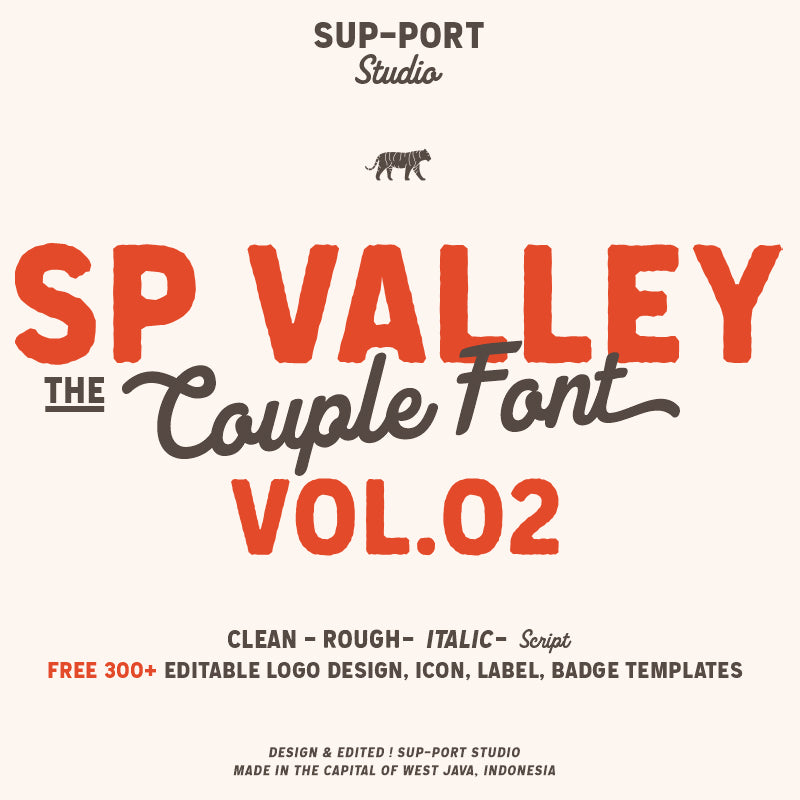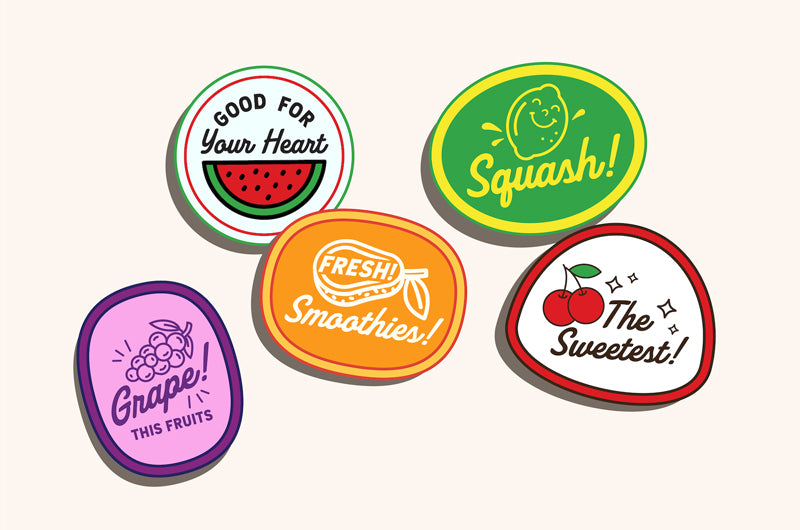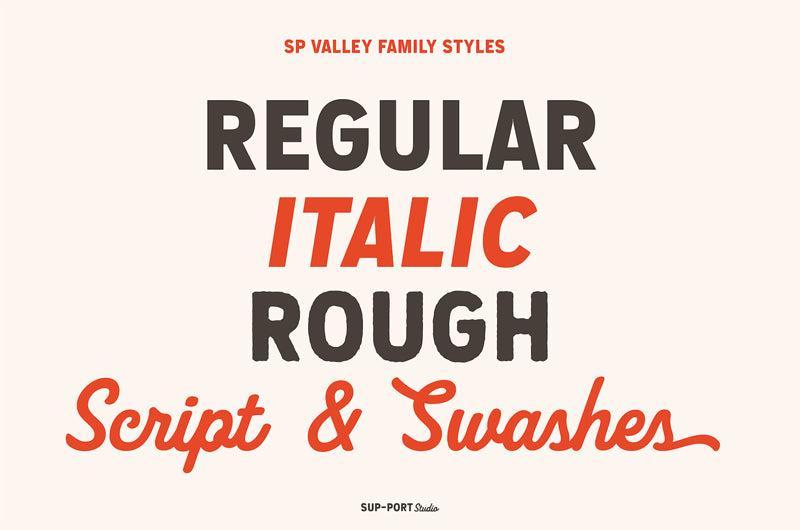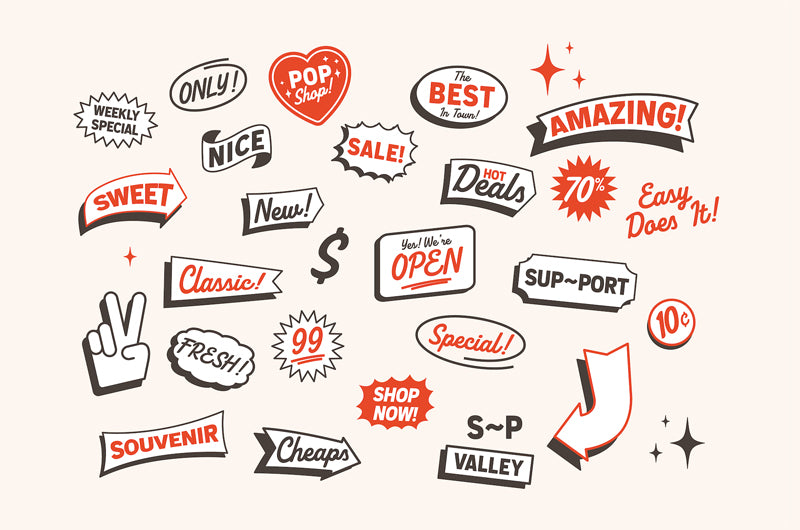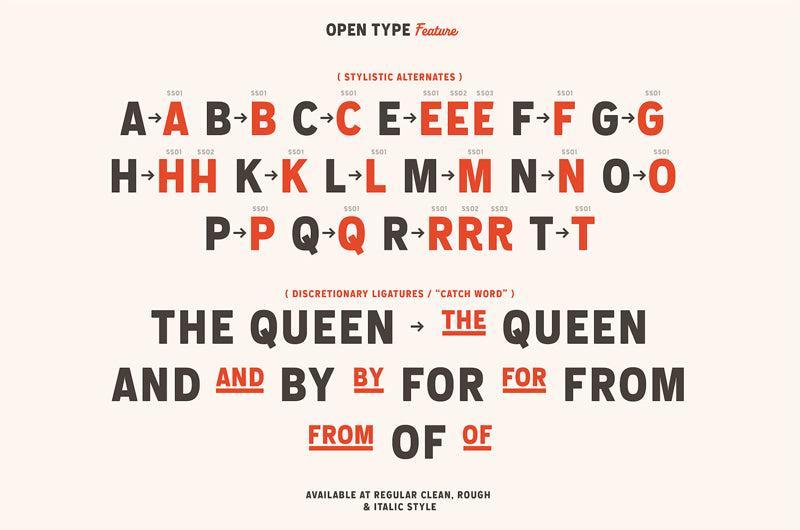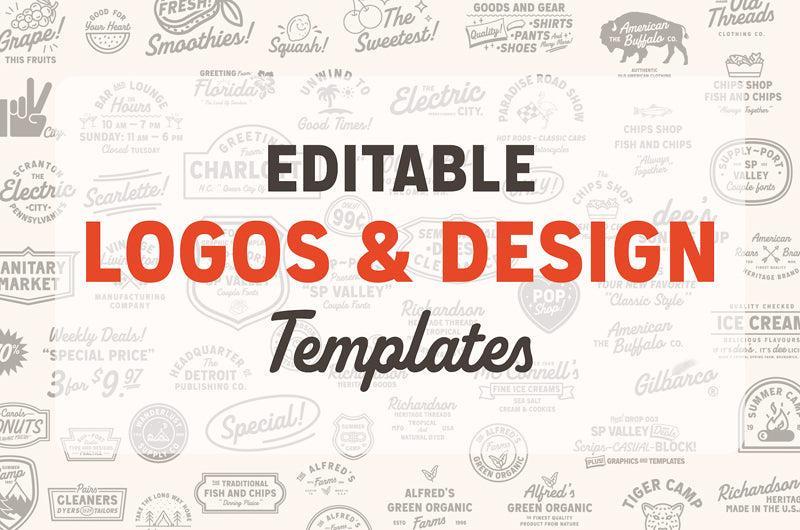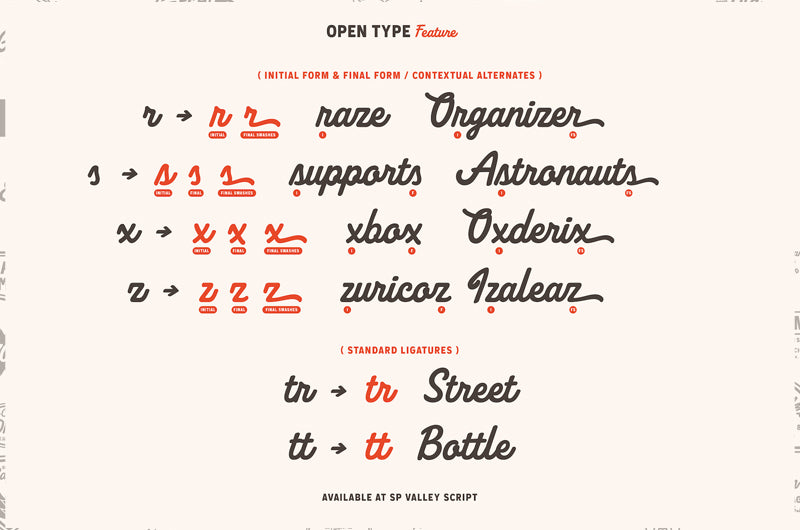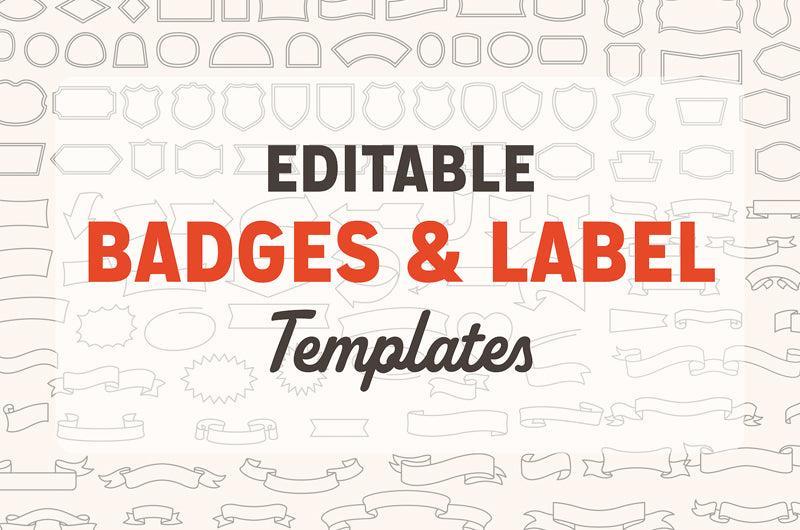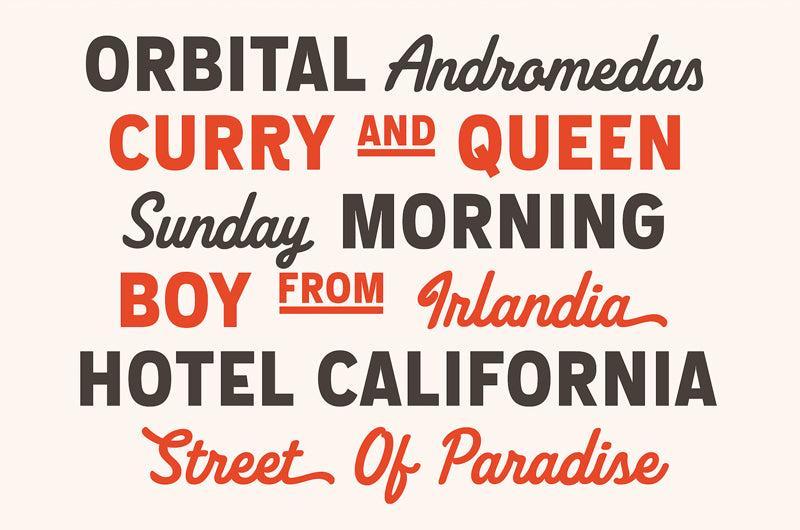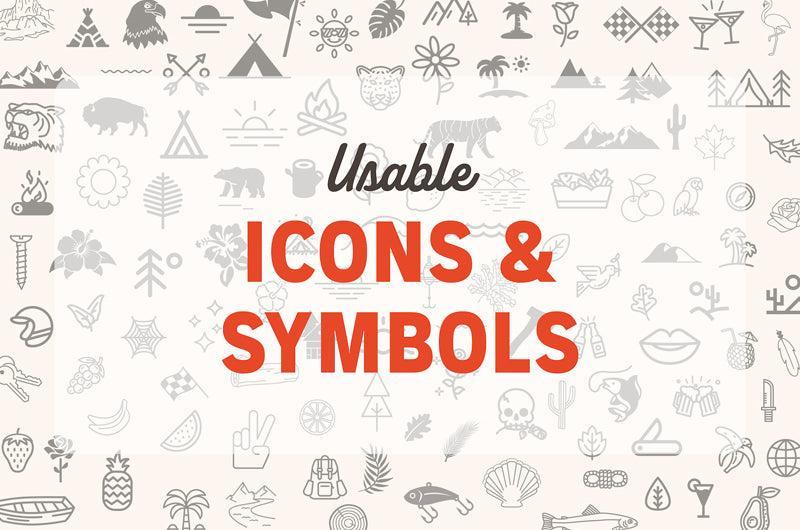
SP Valley Couple Font
The SP Valley Couple Font bundle includes a combination of sans and script typefaces, along with graphic design templates and badge packages featuring a modern vintage style. It offers OpenType features such as ligatures and ordinals, multi-lingual support, and comes with over 100 icons, all available in OTF, TTF, and web font formats.